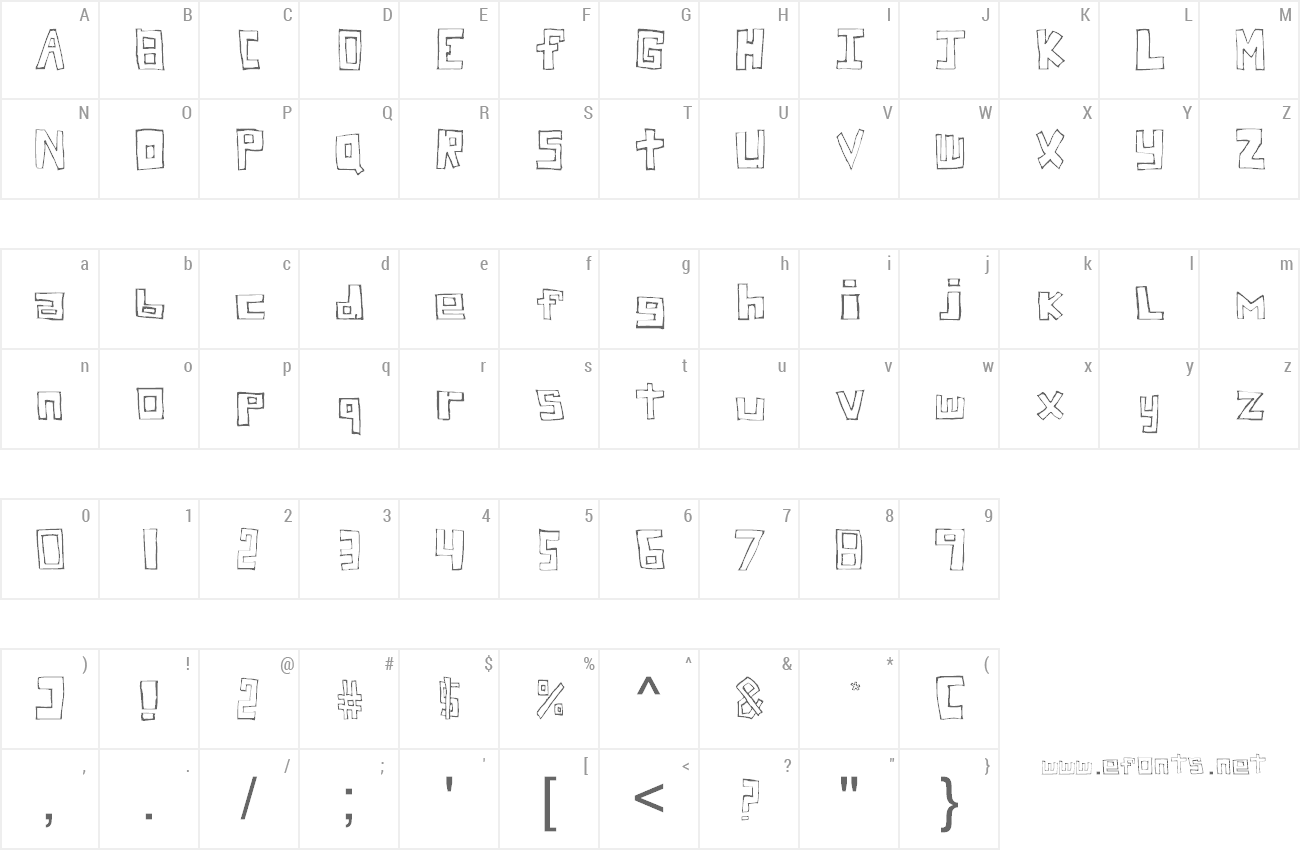
Preview and download Stuck Font. Created by Rhett Bailey in Fancy Cartoon styles with 100% Free license.
| Font name: | Stuck |
| Author: | Rhett Bailey |
| Note by Rhett Bailey | |
| This is a fun font for titles and other crazy things! Use it because it is 100% free of charge! |